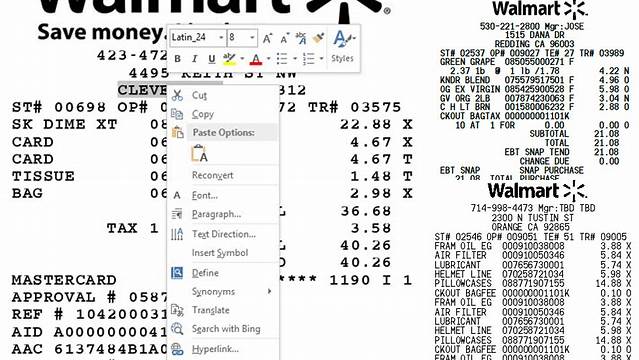
Hey guys! Ever wondered about the font on your Walmart receipt? It's surprisingly interesting! Whether you're a designer, a hobbyist, or just plain curious, understanding the Walmart receipt font can be super useful. Let's dive into everything you need to know about finding and maybe even downloading it for free!
What is the Walmart Receipt Font?
Understanding what the Walmart receipt font actually is can be a bit tricky. Walmart, like many large corporations, often uses proprietary or licensed fonts for their branding to maintain a consistent image. This means the exact font used on their receipts might not be a standard, readily available font. However, it closely resembles several commonly used fonts, which we'll explore. When considering the Walmart receipt font, remember that retailers often prioritize readability and efficiency, so the font is typically clear, concise, and easily printable. The choice of font also influences the overall brand perception, conveying trustworthiness and reliability. Many factors influence the retailer’s decision of which font to use, so if you are trying to find an exact replica you will need to take a lot into account. The font may change over time as well as the brand evolves, this can be due to design choices, a change in printers, or a change in company values. The decision to change font is not taken lightly and will have many factors to consider.
Identifying the Walmart Receipt Font
So, how do you go about identifying the Walmart receipt font? The first step is to carefully examine the receipt itself. Look at the characteristics of the letters and numbers. Is it a serif font (with small decorative strokes) or a sans-serif font (without strokes)? Is it monospaced, where each character takes up the same amount of horizontal space, or proportional? Once you've determined these basic characteristics, you can use online font identification tools. Sites like WhatTheFont and Font Squirrel's Matcherator allow you to upload an image of the font, and they'll suggest possible matches. Keep in mind that the exact font may not be available, but you'll likely find close alternatives. To get the best results when using these tools, make sure the image you upload is clear and high-resolution. Also, try to include as many different characters as possible in the image, as this will give the identification tool more data to work with. Remember, identifying the Walmart receipt font is like being a font detective – it takes a keen eye and a bit of patience. Also, be mindful that Walmart may use slightly different fonts across different regions or store formats, so what you find on one receipt might not be the same as another. With some luck and a little research, you'll be well on your way to uncovering the mystery of the Walmart receipt font!
Closest Alternatives to the Walmart Receipt Font
If you can't find the exact Walmart receipt font, don't worry! There are plenty of close alternatives that will give you a similar look and feel. Some popular options include Courier New, OCR-A, and Consolas. Courier New is a monospaced font that's widely available and often used in situations where readability is key. OCR-A is another monospaced font specifically designed for optical character recognition, making it a great choice for mimicking the look of printed receipts. Consolas is a more modern monospaced font that's often used in coding environments, but it can also work well for creating a clean, legible receipt-like design. To choose the best alternative, consider the specific characteristics of the Walmart receipt font you're trying to emulate. Is it more rounded or angular? Is it heavy or light? Compare different alternatives side-by-side until you find one that's a close match. You can also adjust the font size and weight to fine-tune the look. Remember, the goal is to capture the essence of the Walmart receipt font, even if you can't find an exact duplicate. With a little experimentation, you can find an alternative that works perfectly for your project. These are just some of the fonts that can be used as alternatives, when choosing your font keep in mind the specific attributes of the Walmart receipt font so that you can be sure you are capturing the essence of the original.
How Walmart Uses Fonts for Branding
Walmart's choice of fonts, including the one on their receipts, plays a significant role in their overall branding strategy. Fonts convey certain messages and emotions, and Walmart carefully selects fonts that align with their brand values. For example, a clean, legible font like the one on their receipts suggests trustworthiness, reliability, and efficiency. These are all qualities that Walmart wants customers to associate with their brand. In addition to receipts, Walmart uses fonts consistently across all of their marketing materials, including their website, advertisements, and in-store signage. This helps to create a cohesive brand identity that customers can easily recognize. The use of specific fonts can evoke an emotional response that helps customers identify with the brand and feel confident in their purchases. The Walmart receipt font may seem like a minor detail, but it's actually an important part of Walmart's overall branding efforts. By carefully selecting fonts that convey the right message, Walmart can strengthen their brand image and build customer loyalty. It is important to stay consistent when it comes to branding to help build brand recognition.
The History of Fonts Used on Receipts
The history of fonts used on receipts is an interesting journey through the evolution of printing technology. Early receipts were often handwritten or printed using simple, blocky fonts that were easy to produce with limited printing capabilities. As printing technology advanced, more sophisticated fonts became available, but readability remained a key consideration. The Walmart receipt font, like many receipt fonts, is designed to be clear and legible, even when printed on low-quality paper using thermal printers. Over time, the fonts used on receipts have also become more standardized, with monospaced fonts like Courier New and OCR-A becoming popular choices. These fonts are easy to read and can be accurately processed by optical character recognition (OCR) systems. Today, the fonts used on receipts continue to evolve, with retailers experimenting with different styles and designs. However, the basic principles of readability and efficiency remain paramount. The history of fonts used on receipts is a reflection of the ongoing interplay between technology, design, and practicality. This is a history that is always evolving and changing as new technologies emerge.
DIY Projects Using Receipt-Inspired Fonts
Looking for a fun and creative way to use receipt-inspired fonts? There are tons of DIY projects you can try! For example, you could create custom labels for your pantry using a monospaced font like Courier New. This will give your pantry a clean, organized look that's reminiscent of a well-stocked store. You could also use a receipt-inspired font to create personalized gift tags or greeting cards. The unique look of the font will add a touch of whimsy and personality to your creations. If you're feeling ambitious, you could even design your own custom stationery using a receipt-inspired font. This is a great way to add a touch of professionalism to your correspondence while still maintaining a unique and creative flair. The Walmart receipt font, or a similar font, can be a great source of inspiration for all sorts of DIY projects. So, get creative and see what you can come up with! The possibilities are endless. Do it yourself projects can be a lot of fun, and are a great way to spend some time. Especially if you are using a cool and unique font.
The Psychology Behind Font Choices
Did you know that font choices can have a significant impact on how people perceive a message? It's true! The psychology behind font choices is a fascinating field that explores how different fonts evoke different emotions and associations. For example, serif fonts like Times New Roman are often seen as traditional, authoritative, and trustworthy. Sans-serif fonts like Arial are often perceived as modern, clean, and approachable. The Walmart receipt font, with its emphasis on readability and efficiency, likely conveys a sense of practicality and reliability. When choosing fonts for your own projects, it's important to consider the message you're trying to convey. Do you want to project an image of professionalism and authority? Or do you want to come across as friendly and approachable? The right font can help you achieve your desired effect. Consider the context of your project, such as your target audience and your overall brand identity. With a little bit of thought and research, you can choose fonts that will help you communicate your message effectively. You can use the psychology behind font choices to make sure you are conveying the message that you would like.